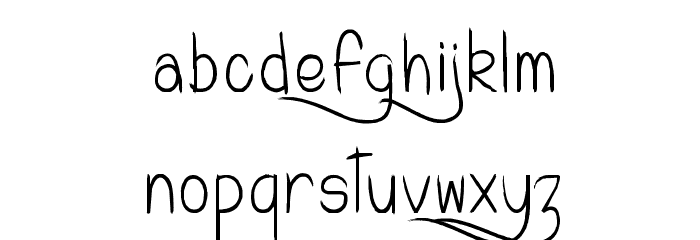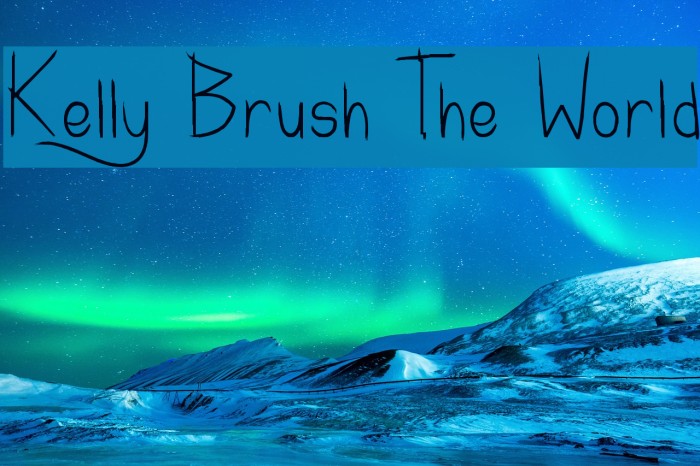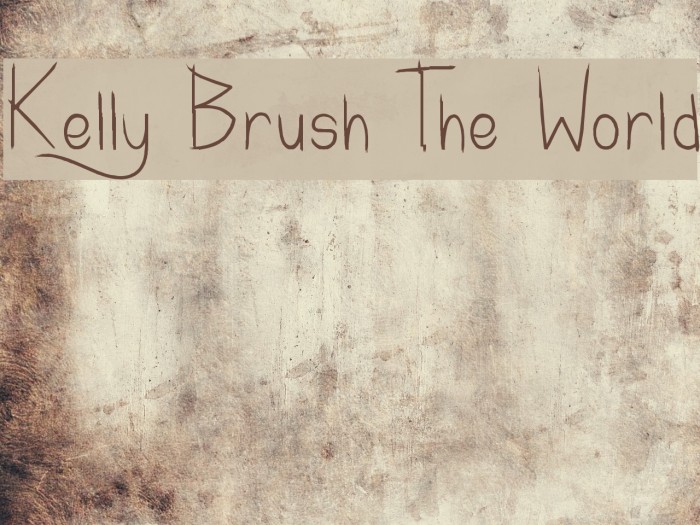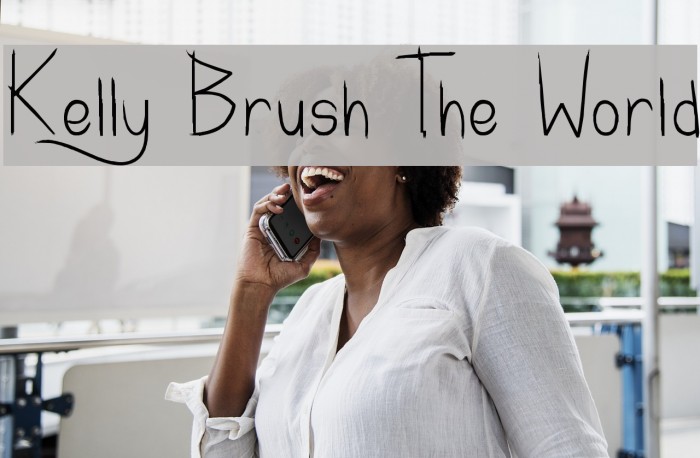
Kelly Brush The World Font
This font exhibits a playful and whimsical style, characterized by its hand-drawn appearance. The uppercase letters are tall and slightly irregular, giving a sense of spontaneity and creativity. The lowercase letters maintain a consistent flow, with some characters featuring unique flourishes that add to the font's charm. The strokes are thin and vary slightly in thickness, contributing to a casual and informal look. This font is ideal for projects that require a personal touch, such as invitations, greeting cards, or children's book covers. Its distinctive style makes it stand out, while still being legible and approachable.
A playful, hand-drawn font with whimsical, irregular strokes.
- Proposed Projects: Ideal for invitations, greeting cards, children's books, and creative branding.
- Overall Style: Whimsical, Playful
- Use Case: Headlines, Creative projects, Informal text